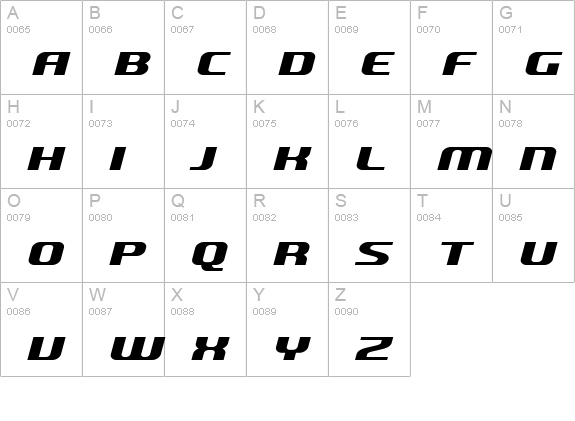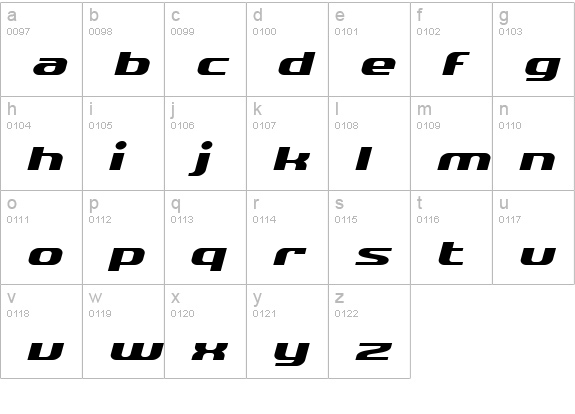
SF Quartzite Extended Oblique Font Details
SF Quartzite Extended Oblique is a distinctive, extended-width, italic variant in the SF typeface family \xE2\x80\x94 well suited to design and typography projects.
Introducing SF Quartzite Extended Oblique, a stunning font that effortlessly blends elegance and modernity. This unique typeface captivates with its sleek and elongated letterforms, exuding a sense of sophistication and versatility. Designed with meticulous attention to detail, SF Quartzite Extended Oblique adds a touch of refinement to any project. Its flowing curves and slanted angles create a dynamic and visually captivating look, making it perfect for both headlines and body text. With its extended character set, this font is ideal for a wide range of design applications. Whether you are working on a logo, branding materials, editorial design, or web design, SF Quartzite Extended Oblique will instantly elevate your project to new heights. But what sets SF Quartzite Extended Oblique apart from the rest is that it is freely available to download at FontsMarket.com. Yes, you read that right – this exquisite font can be yours at no cost. This means that you can harness its beauty and versatility without breaking the bank. So why wait? Download SF Quartzite Extended Oblique today and unlock endless creative possibilities. Whether you are a designer, a creative professional, or simply someone who appreciates the art of typography, this font is a must-have in your collection. With its seamless integration into any project and its ability to effortlessly command attention, SF Quartzite Extended Oblique is the perfect choice for those who seek both style and substance.